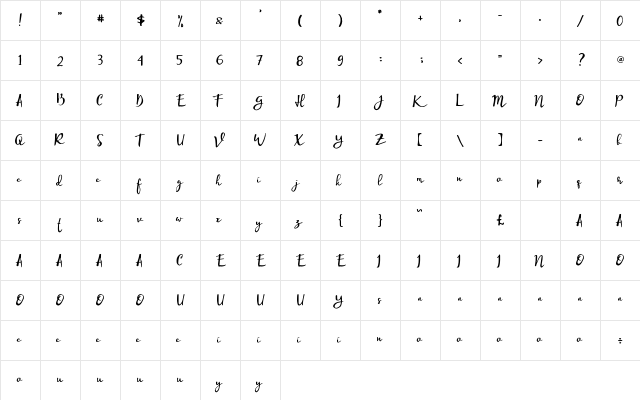
Hottestday Regular
| Designer | unicdesign |
Design Context for Hottestday Typeface
Hottestday is a composed and adaptable typeface that performs quietly and consistently across a wide range of design contexts.